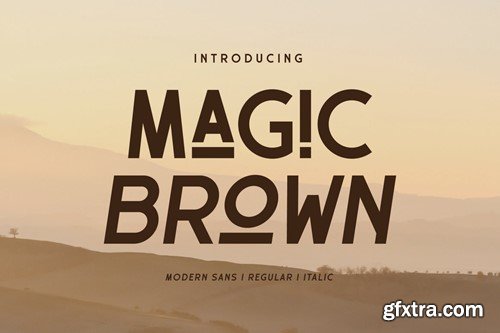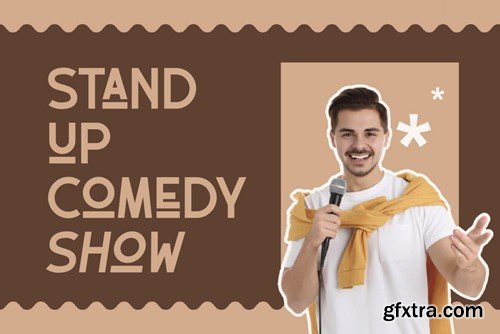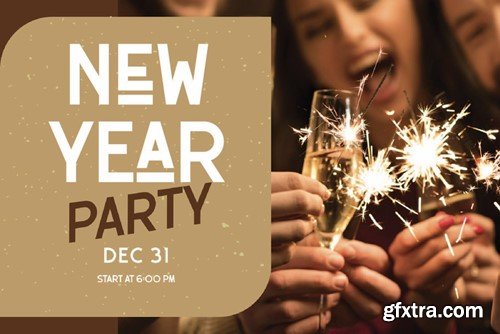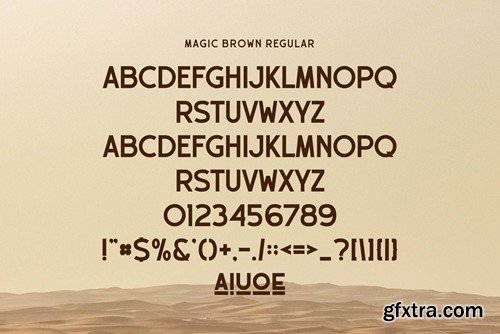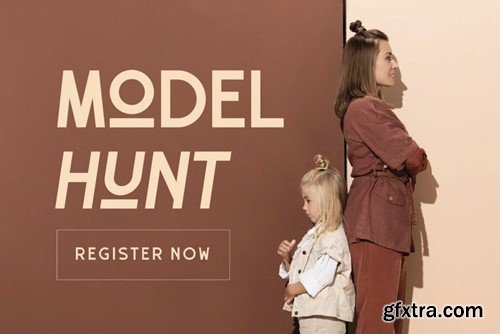
魔术布朗 - 无衬线字体 YE44DUG
Magic Brown - Sans Serif Font YE44DUG
Magic Brown - Sans Serif Font
Magic Brown Sans Font Typeface inspired by the famous minimalist logo perfect for the purposes of designing templates, brochures, videos, advertising branding, logos, invitation, layout design, elegant crafting, beauty design and other.